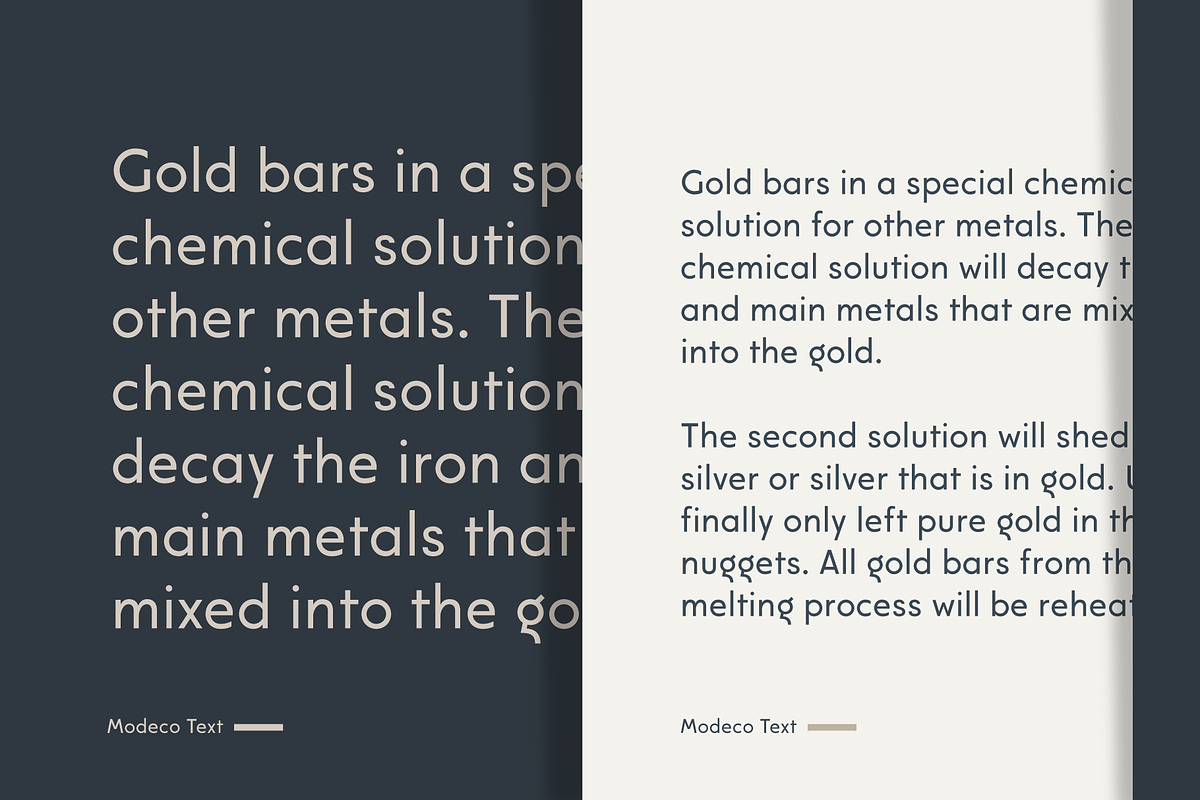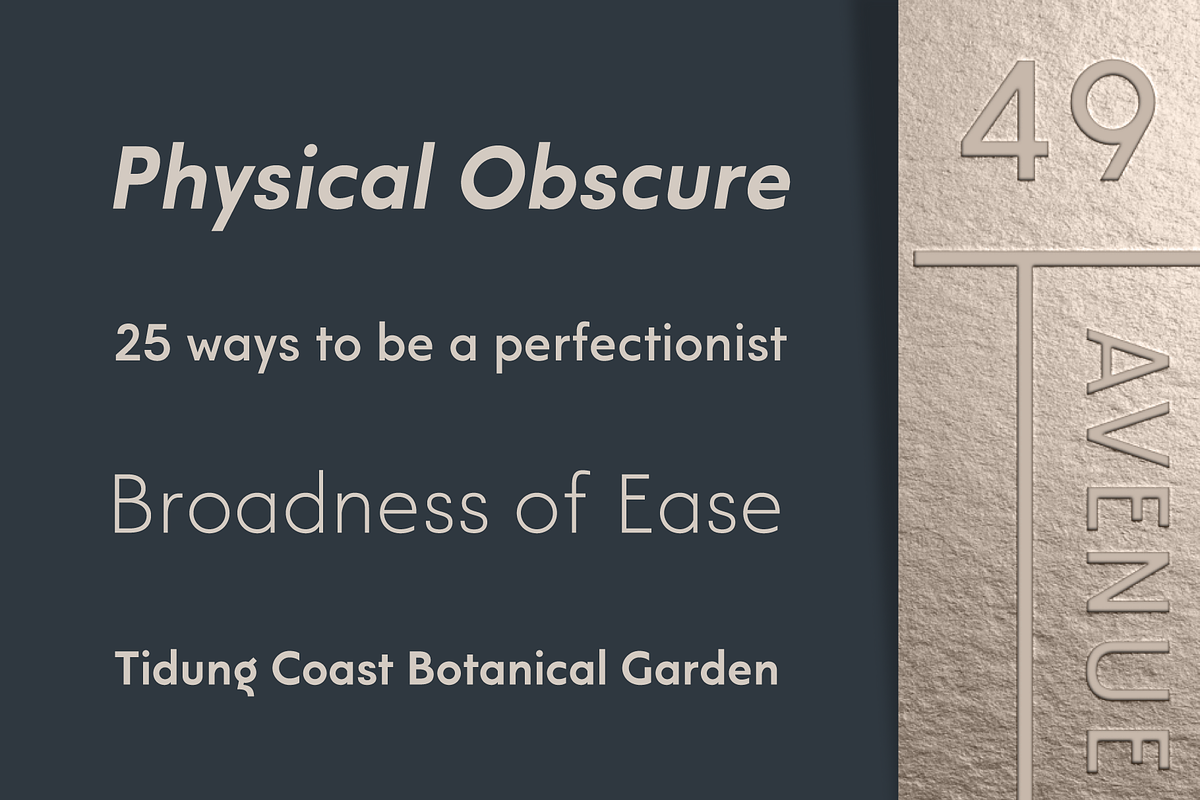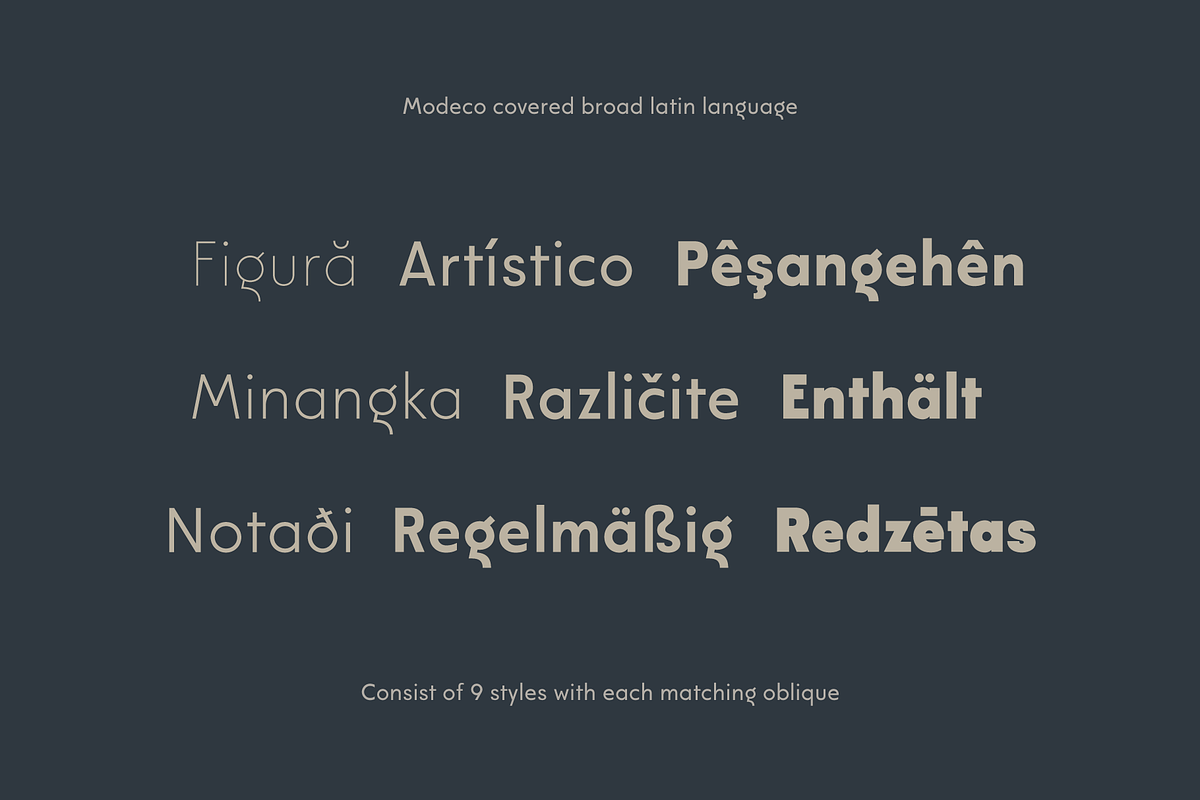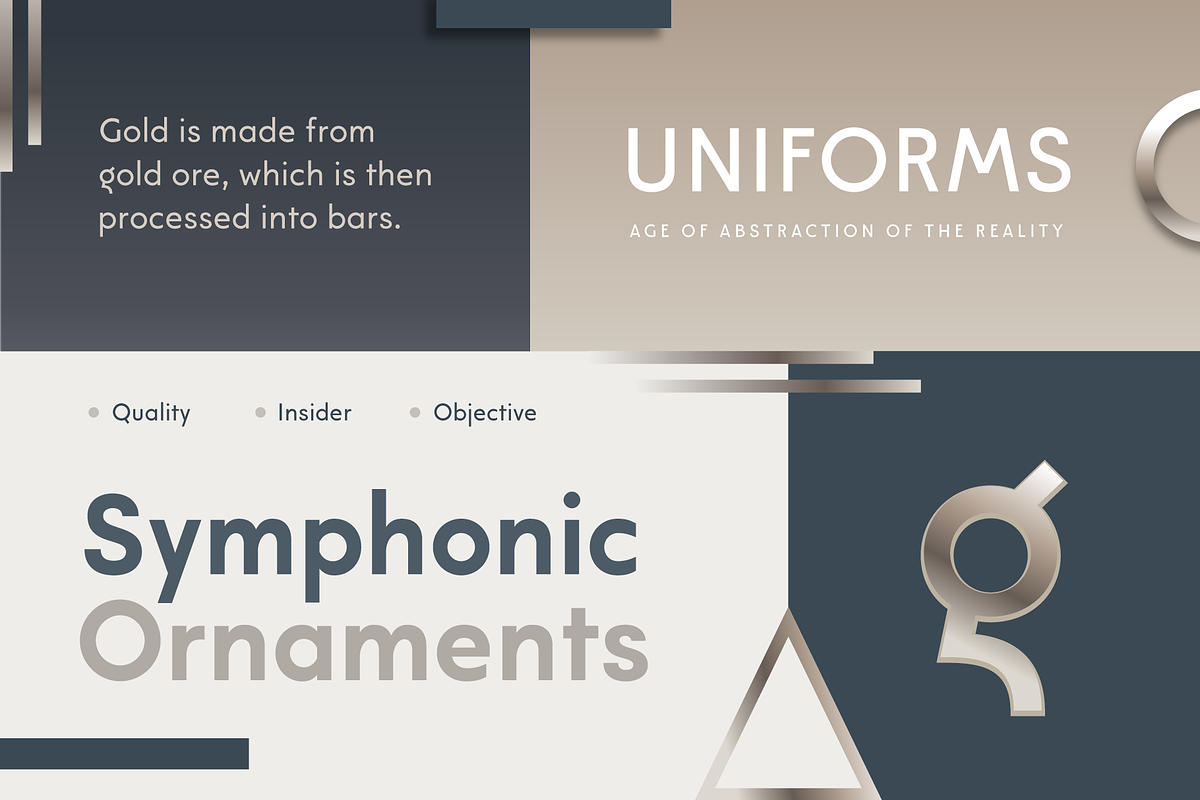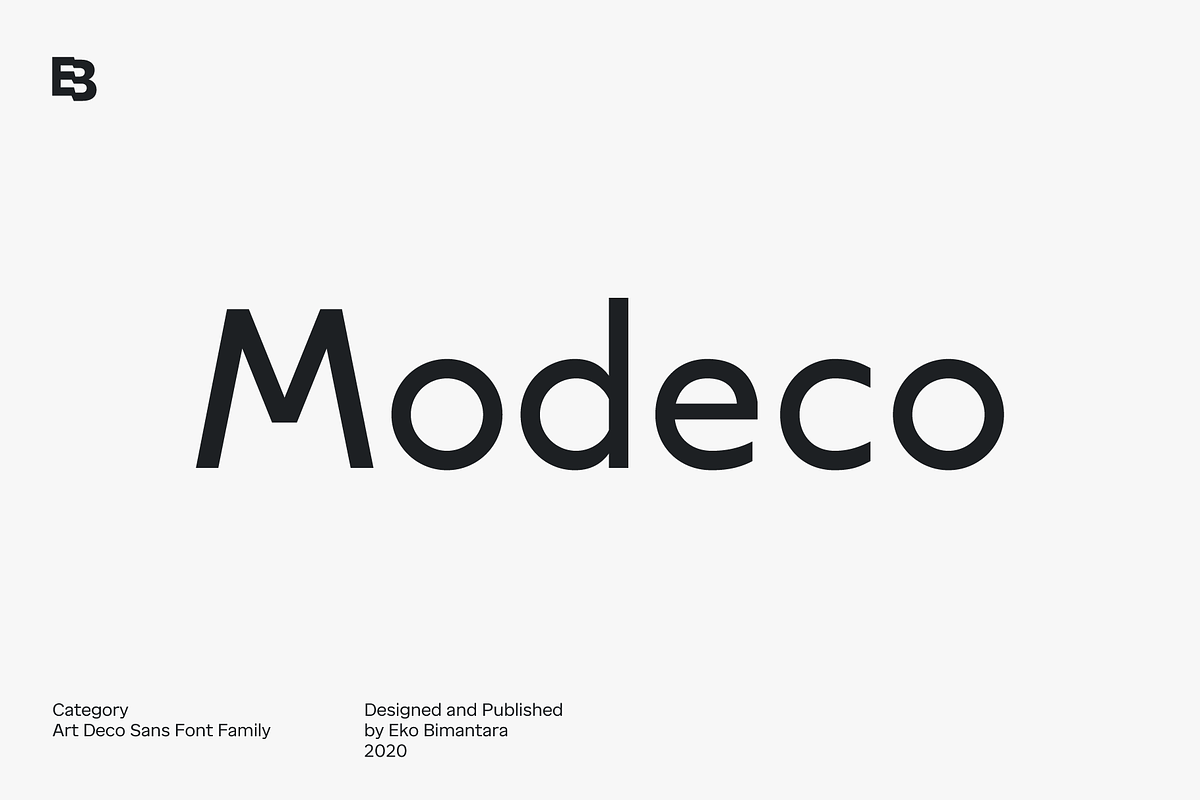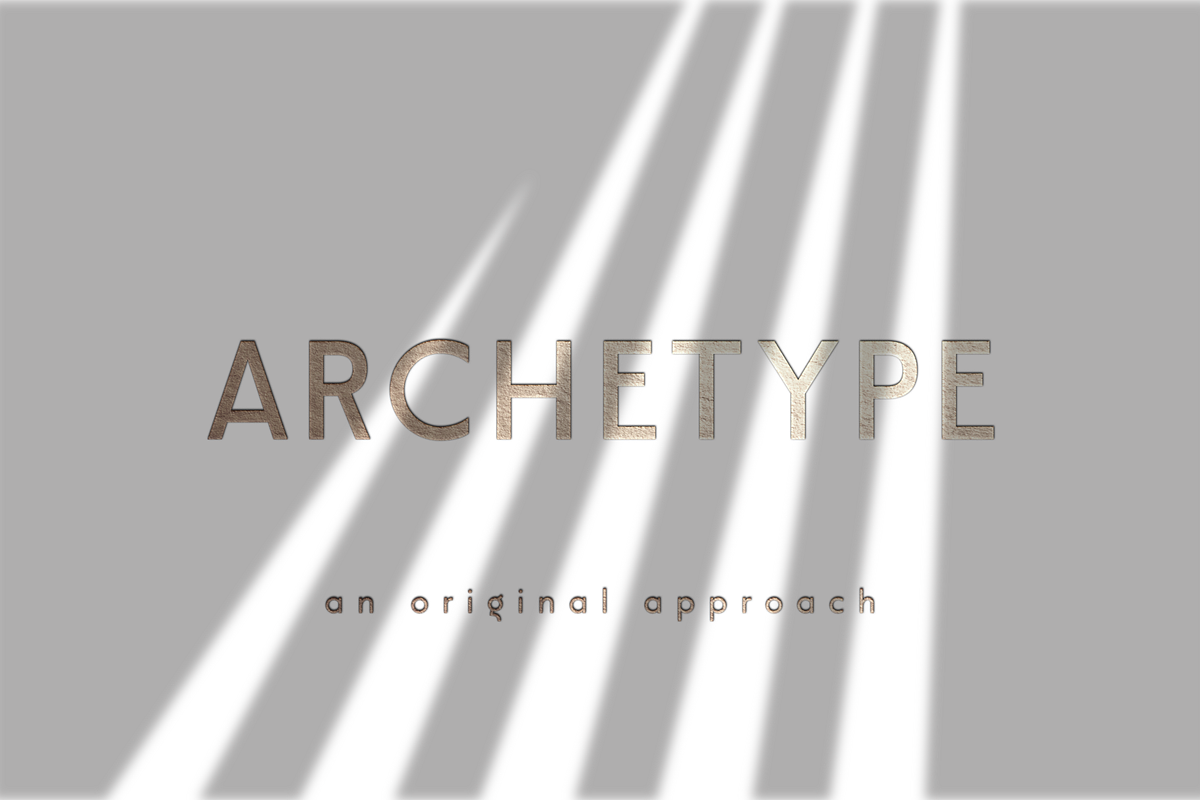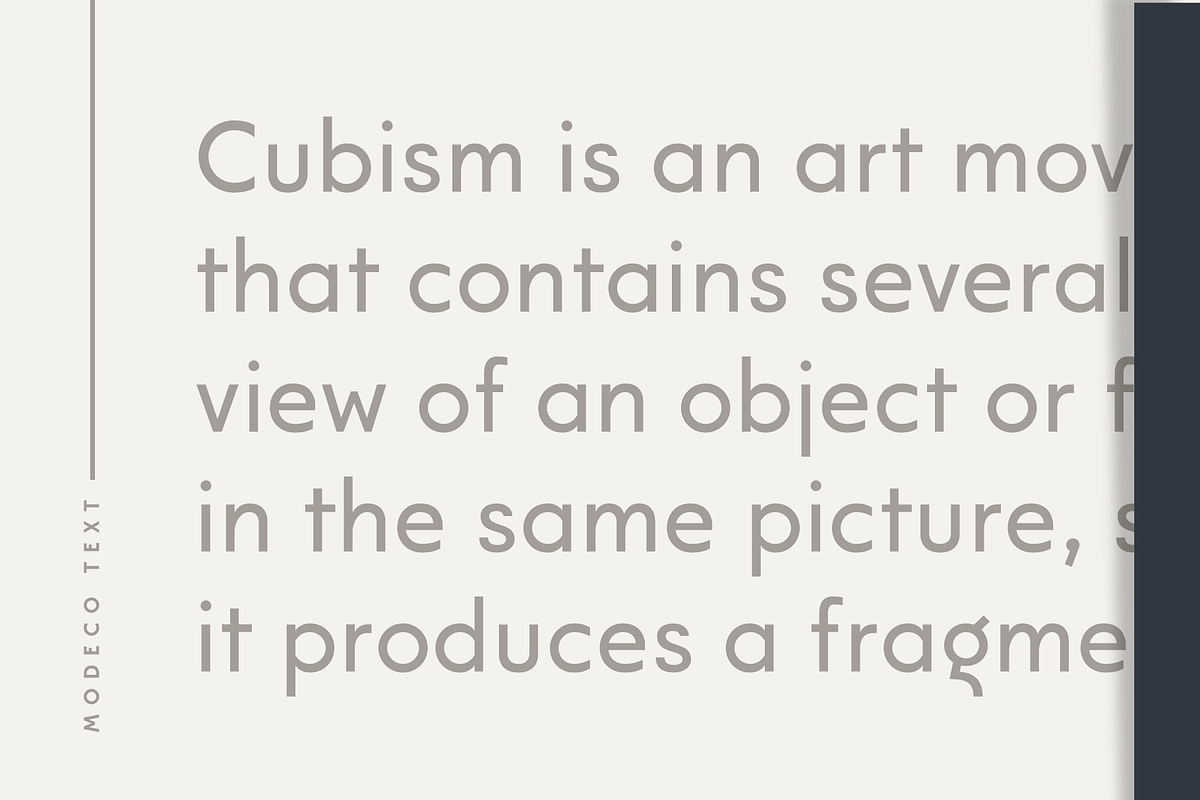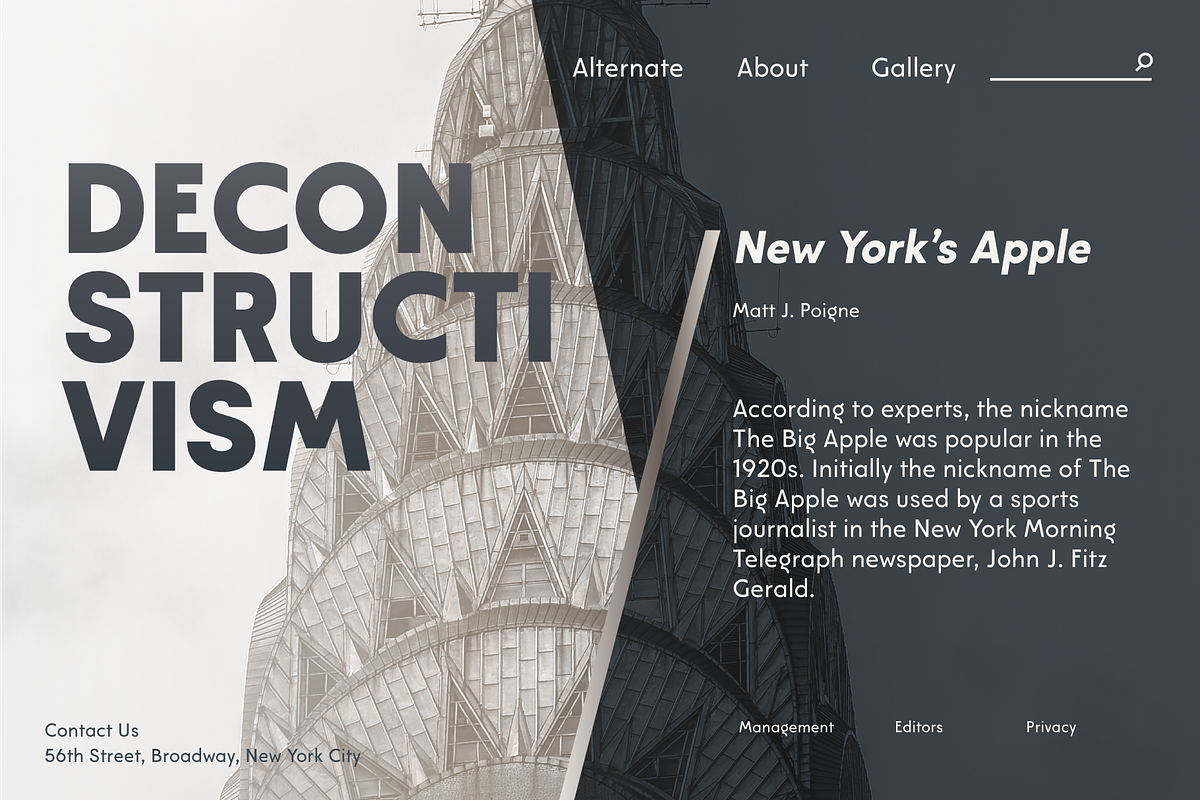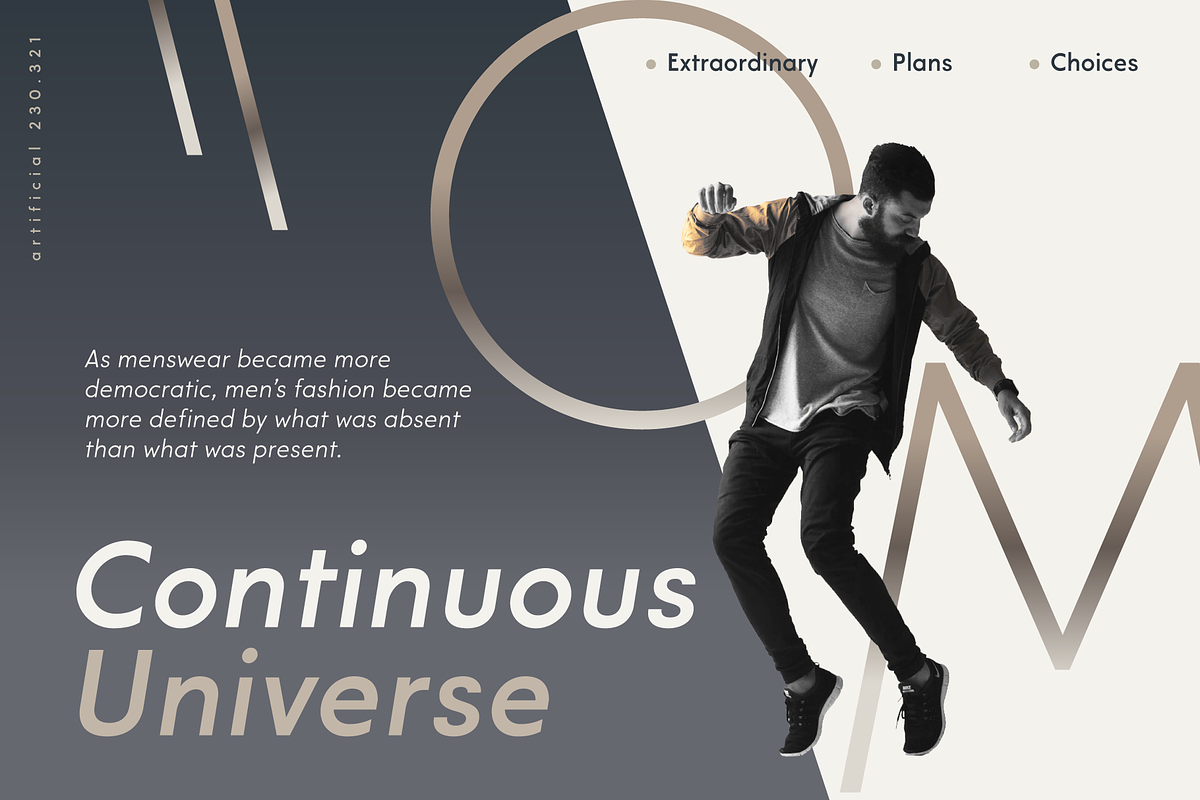
Modeco; Art Deco Geometric Sans
Modeco is a merge of modern and art deco styles. Its shown elegance, classy, and glamour look as 1920's visual trends, blended with geometrical sans serif in a functionality approach and complete font family styles. Its consist of 9 styles from Thin to Black with each matching oblique. It's contain 400+ glyphs that covered broad latin language.